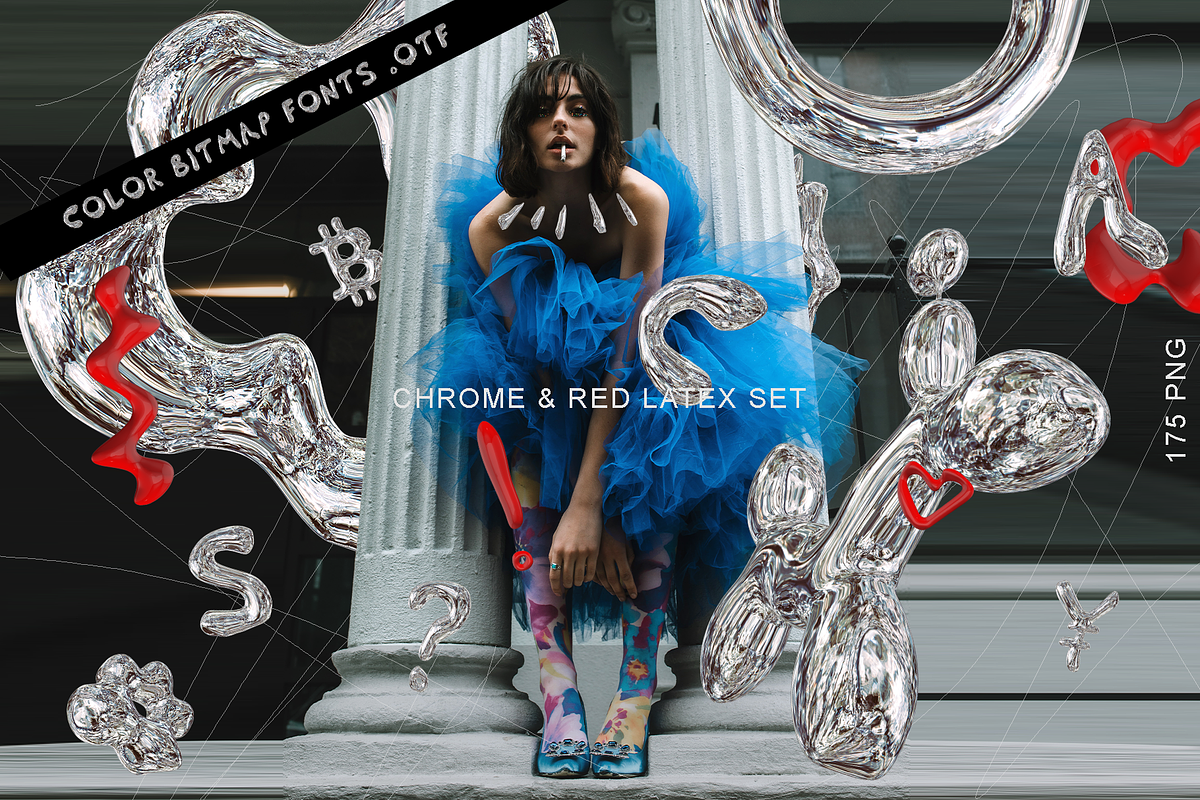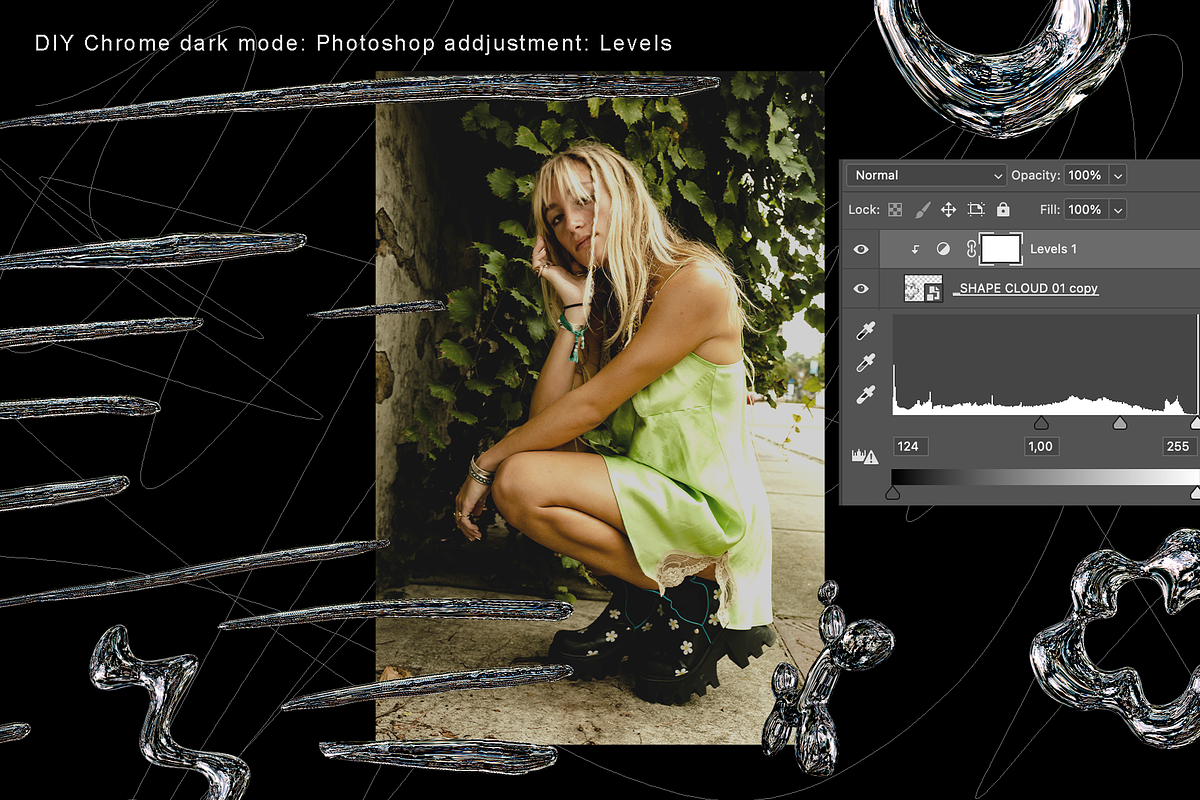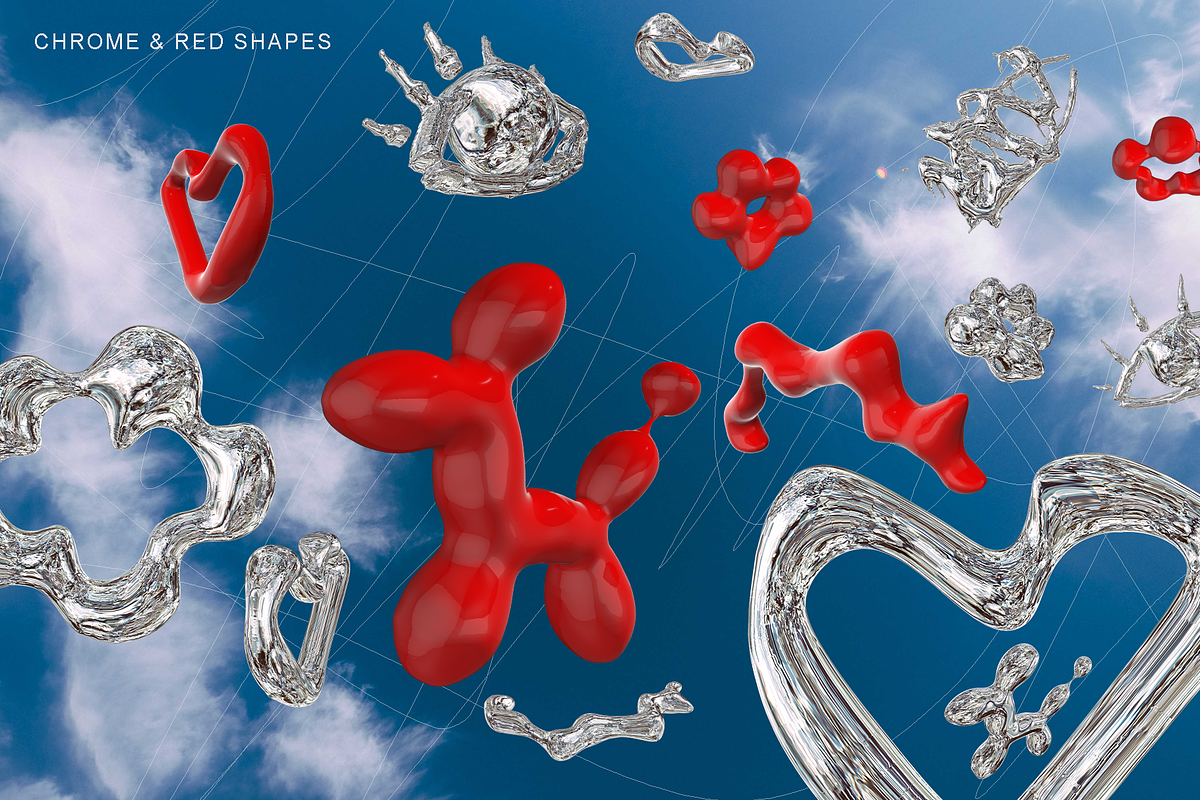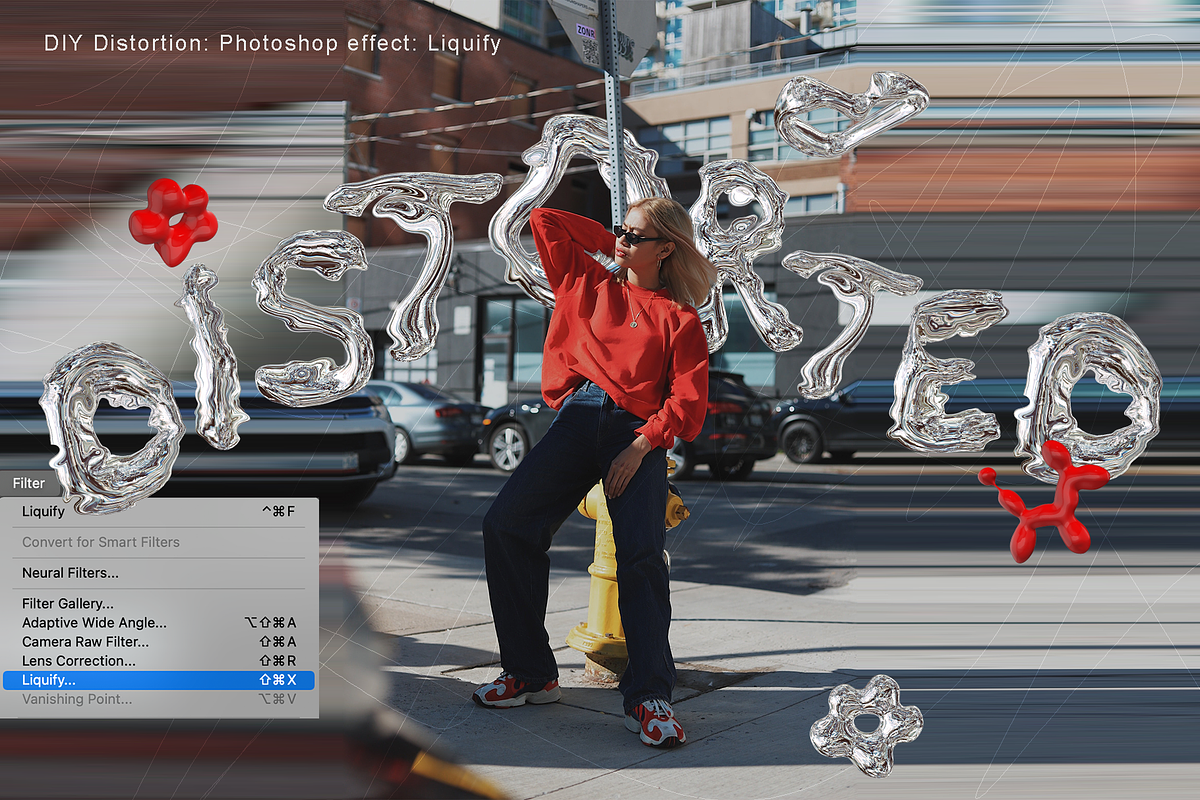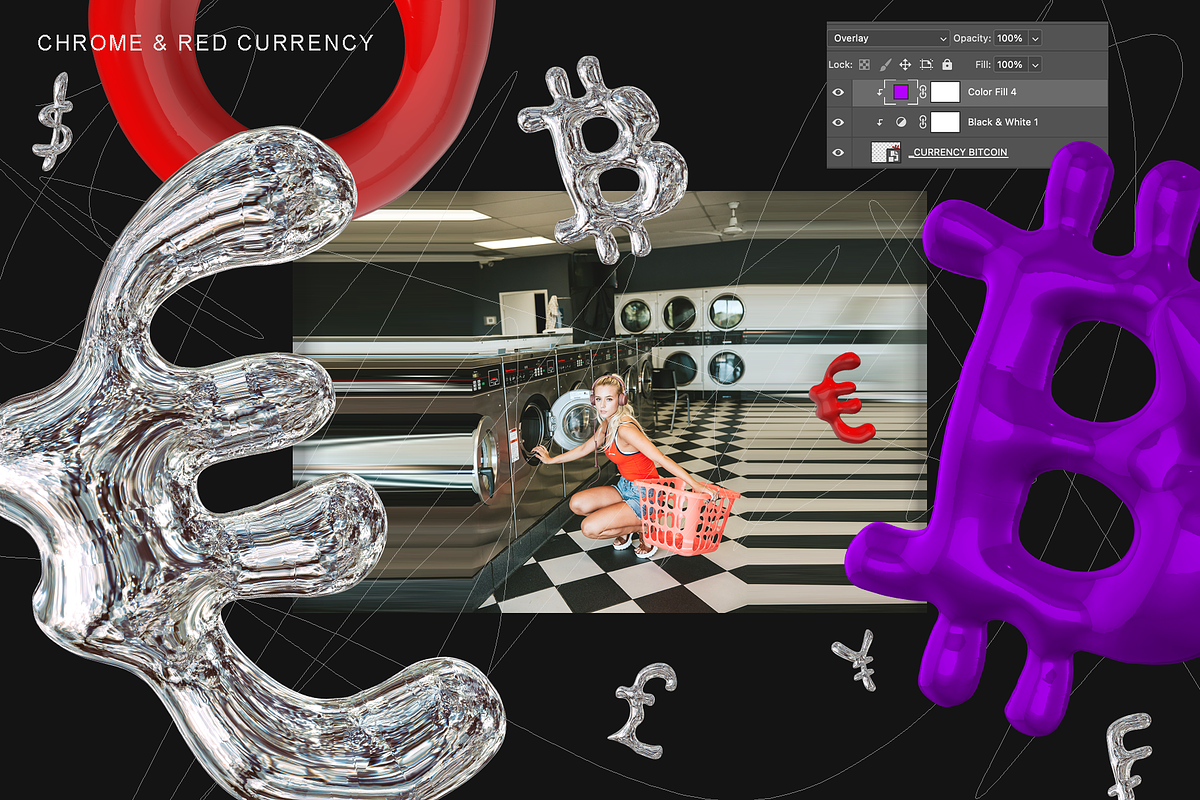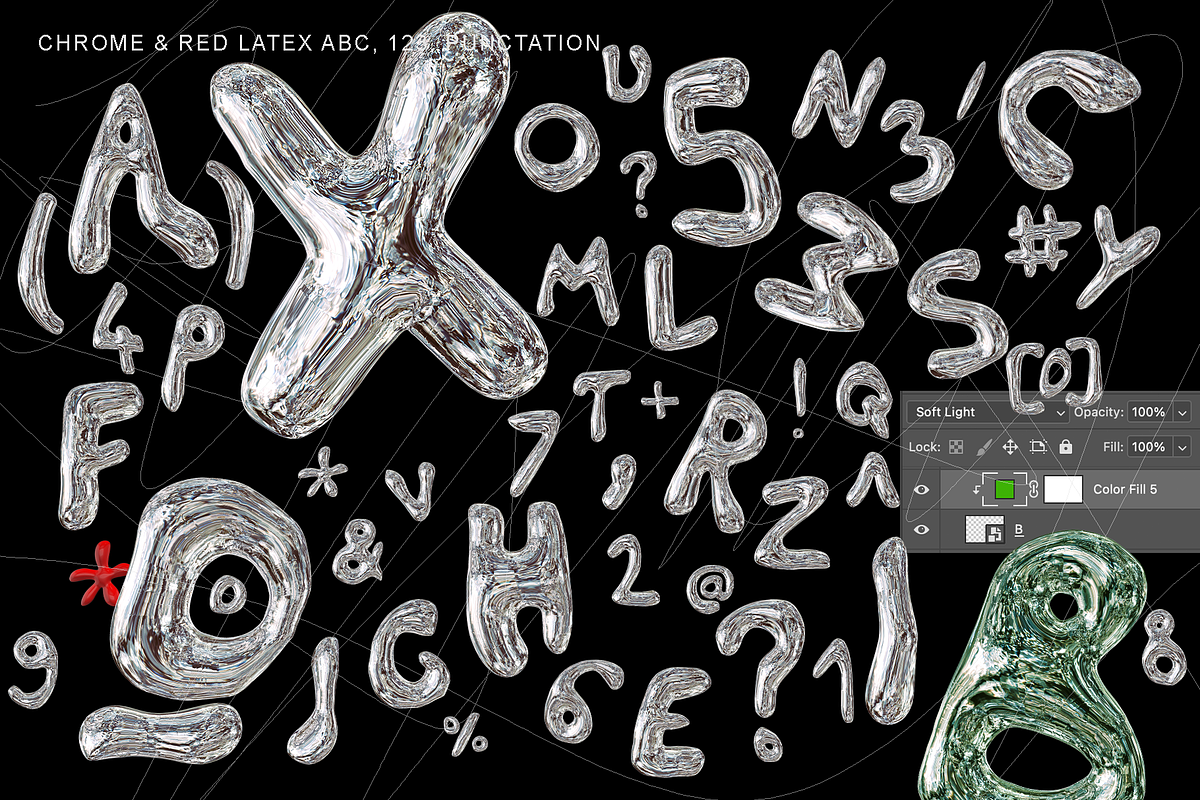
CHROME + LATEX 3D FontDuo Bitmap
Chrome.otf Color Bitmap Font (OpenType SVG Font): Caps, Numbers, $ € £ ¥ @_&#'?.!:/-+%()* Read more below.
RedLatex.otf Color Bitmap Font (OpenType SVG Font): Caps, Numbers, $ € £ ¥ @_&#'?.!:/-+%()* Read more below.
CHROME PNG: Bitcoin, Y, USD, EUR, CHF, GBP, 28 Shapes, .,@&#%^+()?!_[]/*, 1234567890, ABCDEFGHIJKLMNOPQRSTUVWXYZ This chrome bubble letters contain soft glitches (example: 2nd slide, X letter).
RED PNG: Bitcoin, Y, USD, EUR, CHF, GBP, 29 Shapes, .,@&#%^+()?!_[]/*, 1234567890, Letters ABCDEFGHIJKLMNOPQRSTUVWXYZ